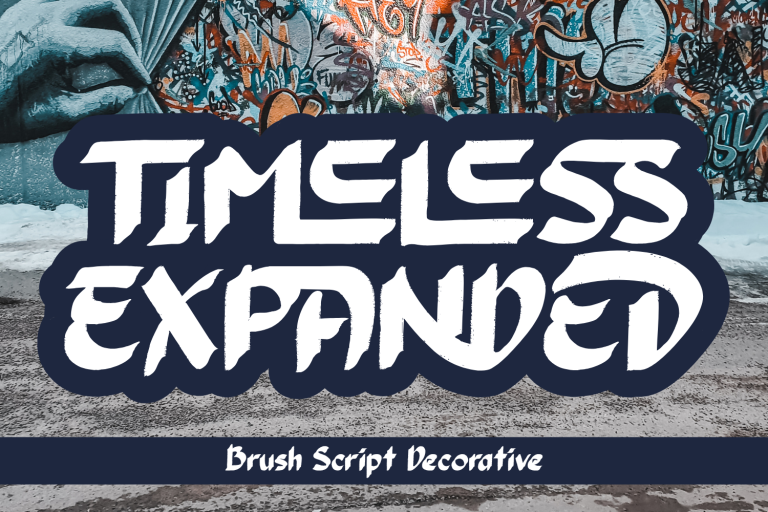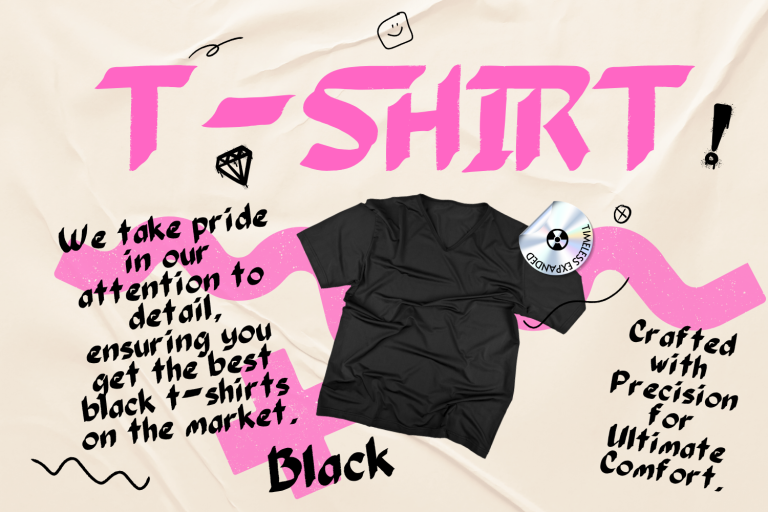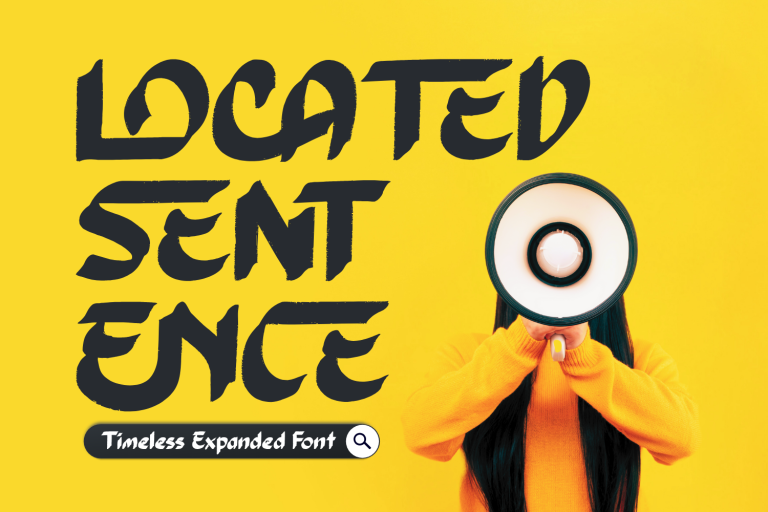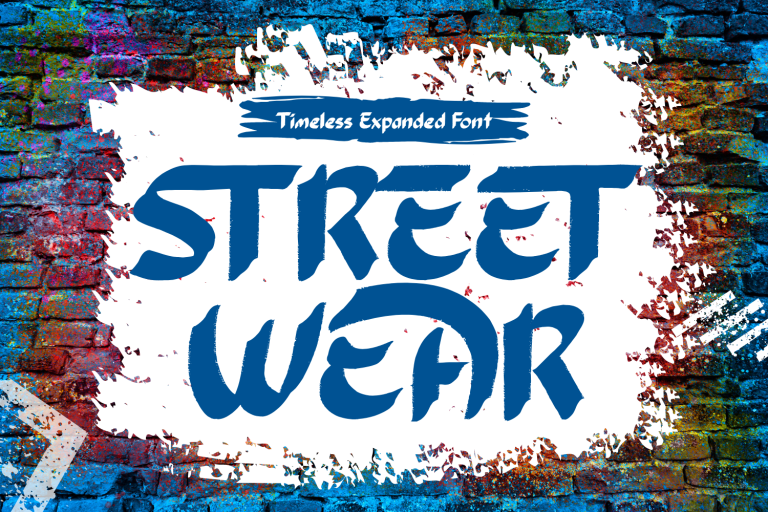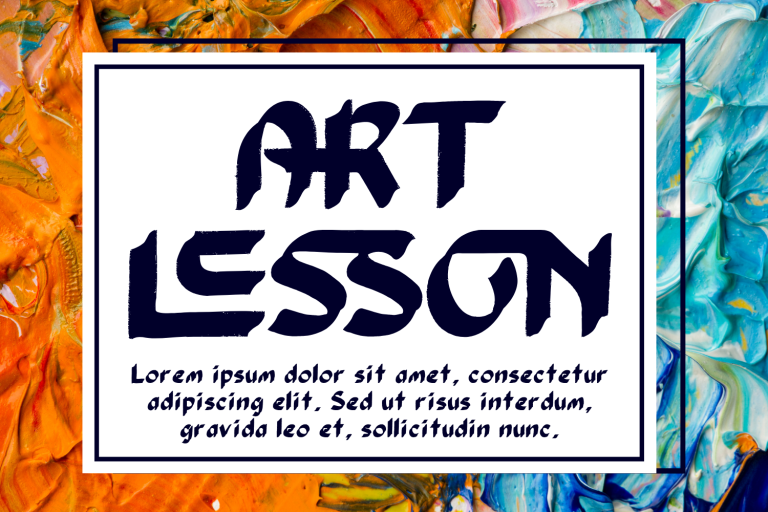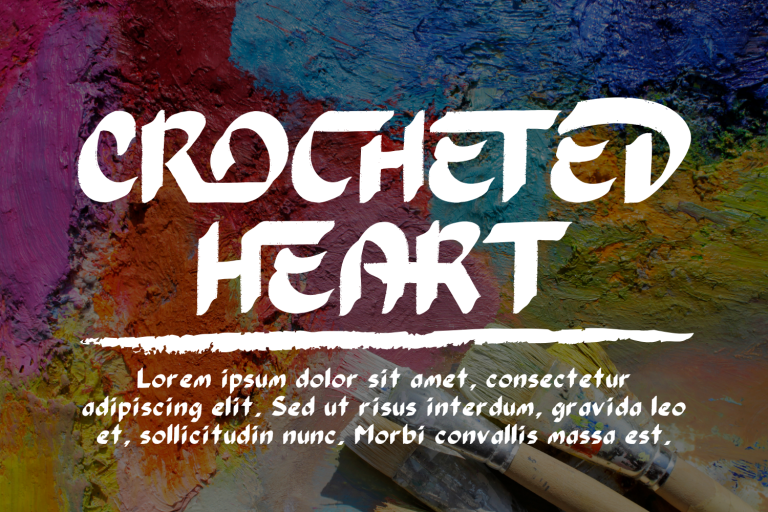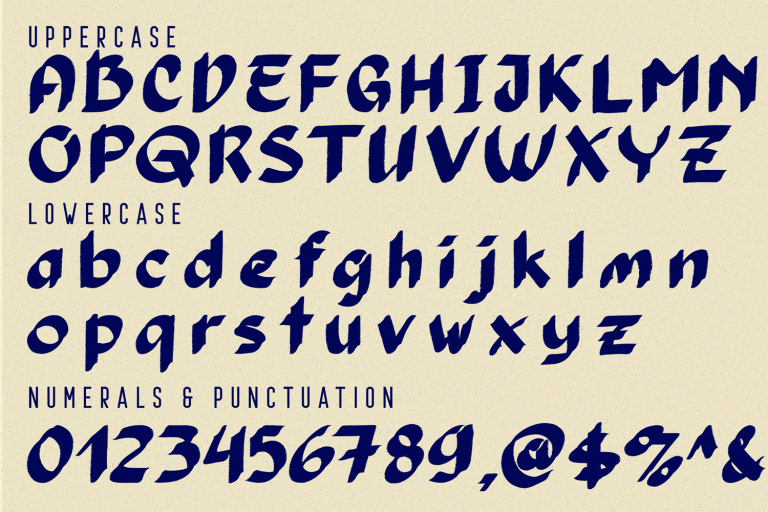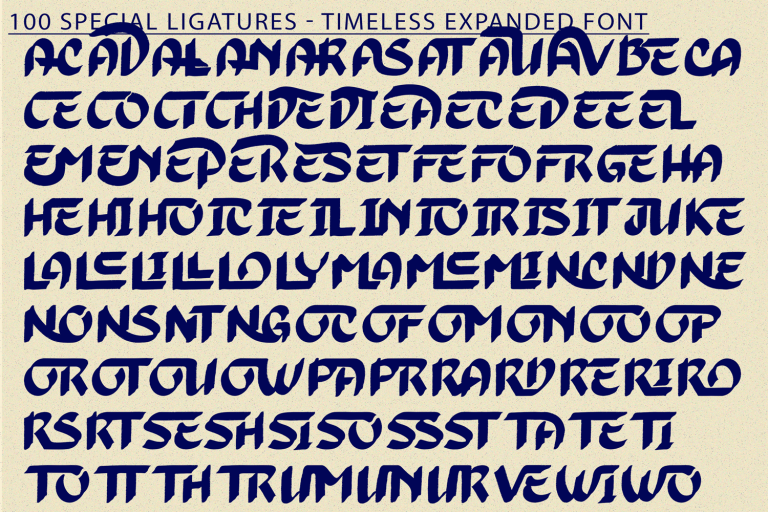
TIMELESS EXPANDED – BRUSH FONT – Urban Expanded Brush Font, is a bold and rebellious brush font designed to stand out in any environment. With its expanded structure and gritty texture, this typeface blends urban street style with expressive hand-drawn energy — perfect for headlines that demand attention. Whether you’re designing for music, fashion, sports, or gaming, TIMELESS EXPANDED delivers a punch of attitude and movement with every glyph.
🔤 Font Features:
• Uppercase & Lowercase Letters
• ~100 Handcrafted Ligatures & Alternates
• Numerals & Full Punctuation
• Accented Characters for Multilingual Support
• Unique Brush Texture with a Raw, Organic Edge
🔤 About 100 ligatures combined with Stylistic Alternates Font:
AC AD AL AN AR AS AT AU AV BE CA CE CH CO CT DE DI EA EC ED EE EL EM EN EP ER ES ET FE FO FR GE HA HE HI HO IE IC IL IN IO IR IS IT JU KE LA LE LI LL LO LY MA ME MI NC ND NE NG NO NT NS OC OF OM ON OO OP OR OT OU OW PA PR RA RD RE RI RO RS RT SE SH SI SO SS ST TA TE TH TI TO TR TT UM UN UR VE WI WO